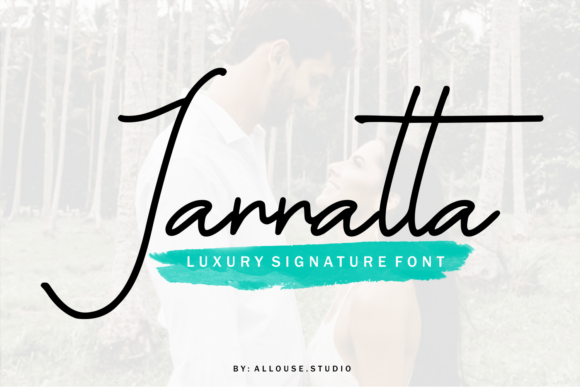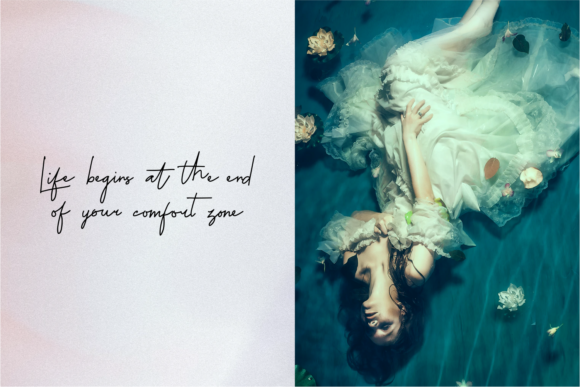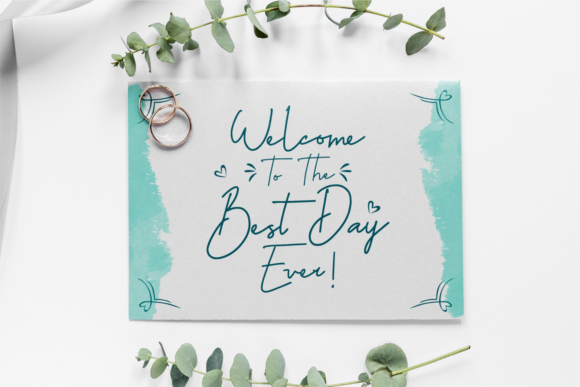
Jannatta Font
Jannatta FontJannatta is a thin and flowing handwritten font. This font is perfect for product packaging, branding project, megazine, social media, wedding, or just used to express words above the background.